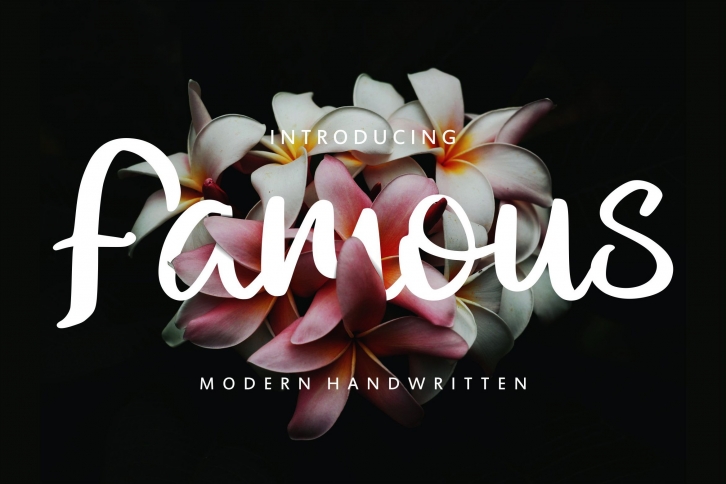
Famous | Modern Handwritten with a calligraphy style, So beautiful on invitation like greeting cards, branding materials, business cards, quotes, posters, and more!
- Alternates and Ligatures